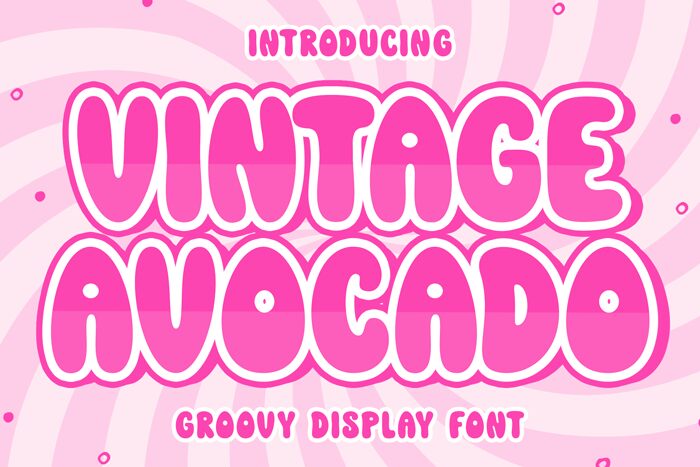
Vintage Avocado, a groovy and extra-bold display font designed by Hoperative, exudes a retro vibe that adds a touch of nostalgia to any project. Its thick strokes and playful curves make it perfect for vintage-inspired designs, such as album covers, party invitations, or T-shirt prints. The boldness of Vintage Avocado ensures that your message stands out with an air of confidence. Whether you're aiming for a 70s revival or simply want to infuse some grooviness into your creative endeavors, this font is the ideal choice to elevate your projects with its lively and captivating aesthetic.